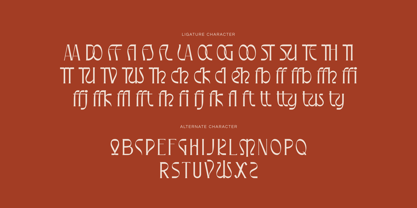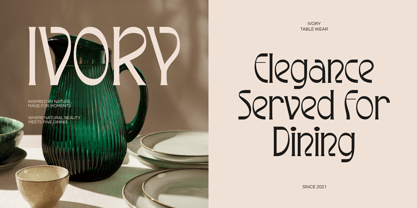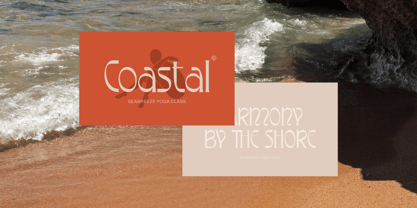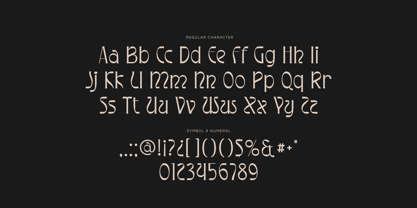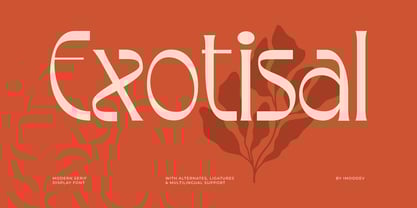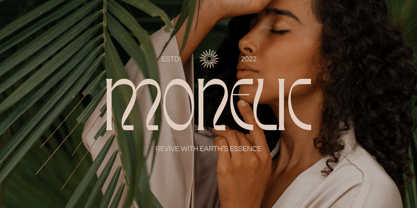
Exotisal
by Imoodev
The Exotisal Font Family was designed by Aulia Savira Putri and published by Imoodev. Exotisal contains 1 styles. More about this family
Exotisal is a modern display font that blends artistic curves with geometric structure, creating a unique and elegant aesthetic, with gracefully curved terminals, and unconventional ligatures that blend artistic flair with typographic precision, it evokes a sense of organic luxury — like a blend of art deco and coastal minimalism.
Perfect for luxury product branding, editorial layouts, logos, headlines, elegant menus and invitations, coastal design, spa and eco-retreat identity, artistic book covers titles, and boutique packaging where elegance and individuality are key. It embodies the balance of nature and refinement, making it perfect for brands that seek to be both serene and bold.
Designers: Aulia Savira Putri
Foundry: Imoodev